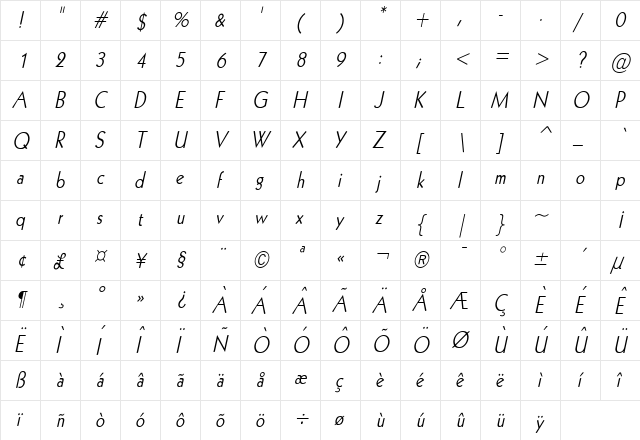
Geo 112 Condensed Italic
Design Context for Geo 112 Condensed Typeface
Geo 112 Condensed is a composed and adaptable typeface that performs quietly and consistently across a wide range of design contexts. The dynamic lean of this cut emphasises speed and emphasis in any layout. The condensed width makes it efficient for tight spaces without sacrificing legibility.
Pro Tip: Use Geo 112 Condensed for emphasis, pull quotes, and subheadings where its slanted energy can add rhythm to the layout.